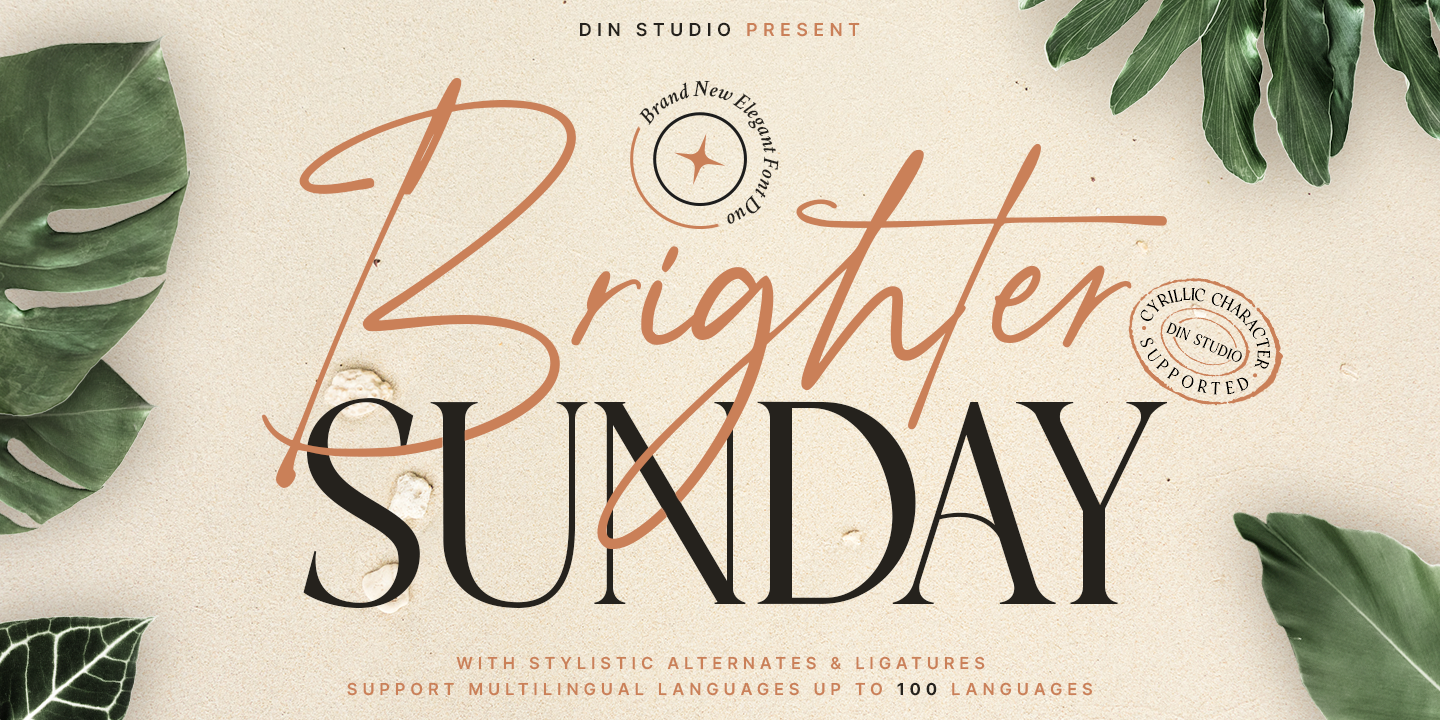
Brighter Sunday Font is perfect for wellness retreat centers, uplifting lifestyle blogs, positive mindset coaching, sunshine café branding, cheerful children's products, optimistic greeting cards, motivational workshop materials, happy family events, and inspiring social media campaigns. This radiant typeface brings joyful optimism and uplifting energy to both digital and print design applications.
Brighter Sunday Font is exciting because it embodies the pure joy and hopeful spirit of bright new beginnings, making it an exceptional choice for designers who want to convey happiness and positivity with authentic uplifting appeal. Its warm letterforms and cheerful character provide the perfect combination of optimistic energy and functional readability, ensuring your projects communicate joy, hope, and sunshine excellence that resonates with audiences seeking genuine happiness and positive life experiences.
The Brighter Sunday Font family includes cheerful weight variations and uplifting elements, featuring light, regular, and bold weights with complementary sunny styles, joyful ligatures, and optimistic decorative flourishes. Each style maintains consistent positive aesthetics while offering flexibility for different uplifting applications, allowing designers to create inspiring visual systems that reflect happiness values and positive lifestyle principles.
Whether you're designing for wellness brands, positive lifestyle companies, or inspirational projects, Brighter Sunday Font Free Download delivers authentic happiness appeal and optimistic sophistication that connects with audiences seeking genuine joy and positive experiences. This premium typeface offers designers the uplifting energy and cheerful charm needed to create designs that communicate positive mindset, joyful living, and happiness excellence effectively. The font's radiant character makes it perfect for positive branding, uplifting campaigns, and joyful applications where authentic happiness credibility is essential. Download Brighter Sunday Font today and brighten your creative projects with genuine optimistic sophistication and joyful typography excellence that defines positive design standards.